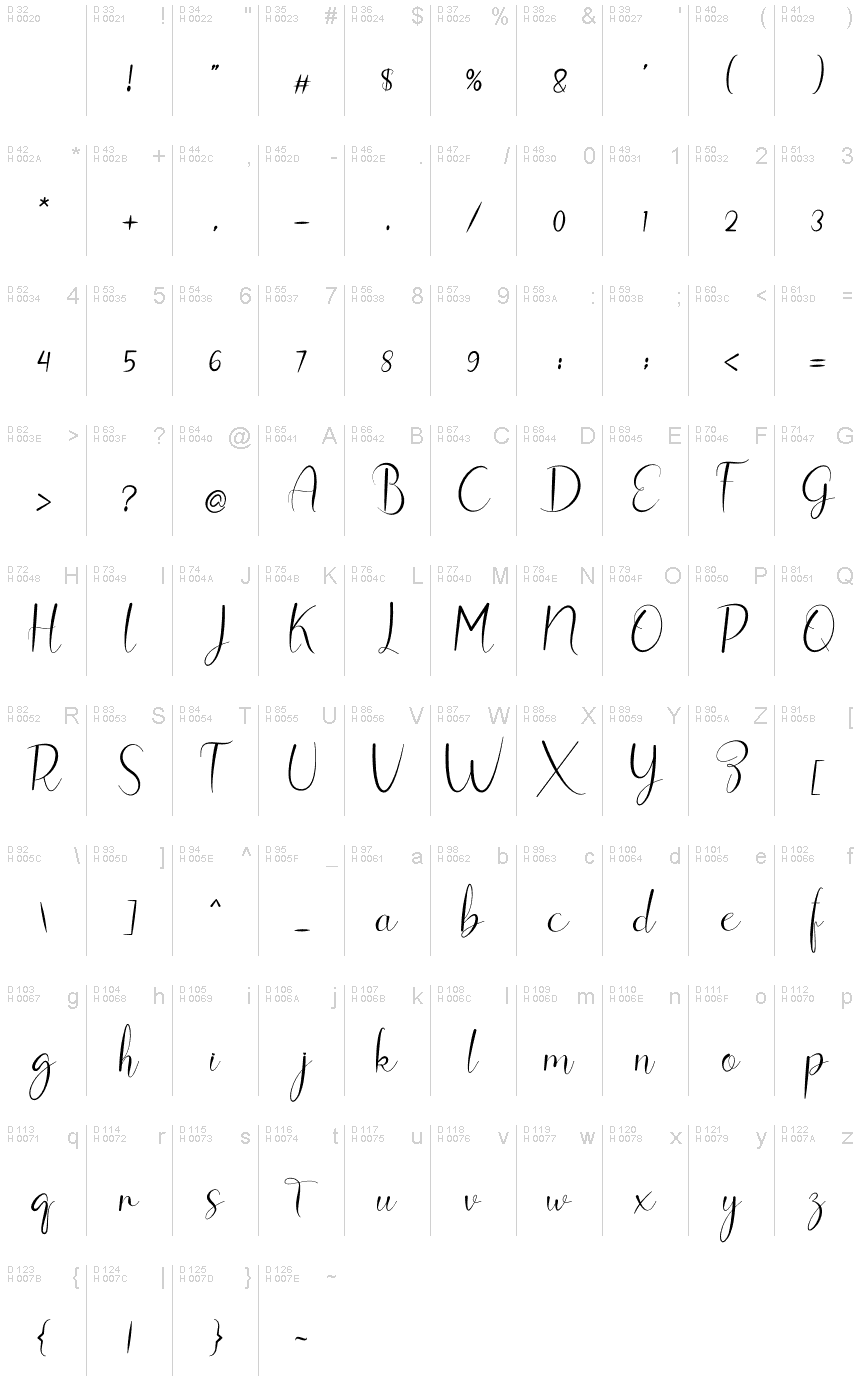
Walksilent
Walksilent is a stunning calligraphy font designed by Fahmi Hayat that will elevate any project it's used in. With its light weight, it exudes an air of elegance and sophistication that's perfect for wedding invitations, branding materials, and editorial pieces. Its flowing script and intricate details make it suitable for high-end fashion campaigns as well as organic food packaging. Walksilent is a versatile font typeface that can be used in both print and digital mediums, making it an excellent choice for designers looking to create beautiful typography. Whether you're designing a logo or a website, Walksilent is sure to impress.